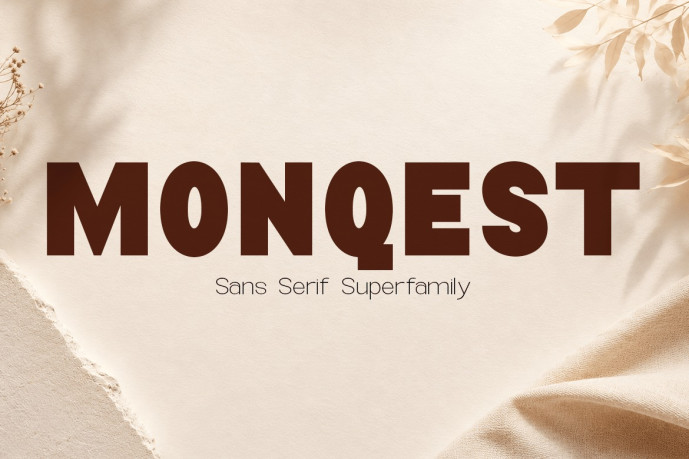
Monqest Font Family is a contemporary sans serif superfamily designed with precision, versatility, and modern clarity in mind. Built to perform across branding, editorial layouts, digital interfaces, motion graphics, and corporate communication, Monqest balances geometric structure with subtle humanist warmth for a refined and highly functional appearance.
The family spans multiple width categories — Condensed, Semi Condensed, Normal, Semi Expanded, and Expanded — offering exceptional flexibility for both compact typography and spacious display compositions. From tight headlines to clean body text, Monqest adapts effortlessly to a wide range of visual environments.
Featuring upright styles from Thin to Black, the typeface delivers a complete spectrum of typographic expression. Lighter weights provide elegance and minimalism, while heavier styles create strong visual impact with confident readability. Carefully engineered proportions, smooth curves, and balanced spacing ensure consistency throughout all 45 fonts in the family.